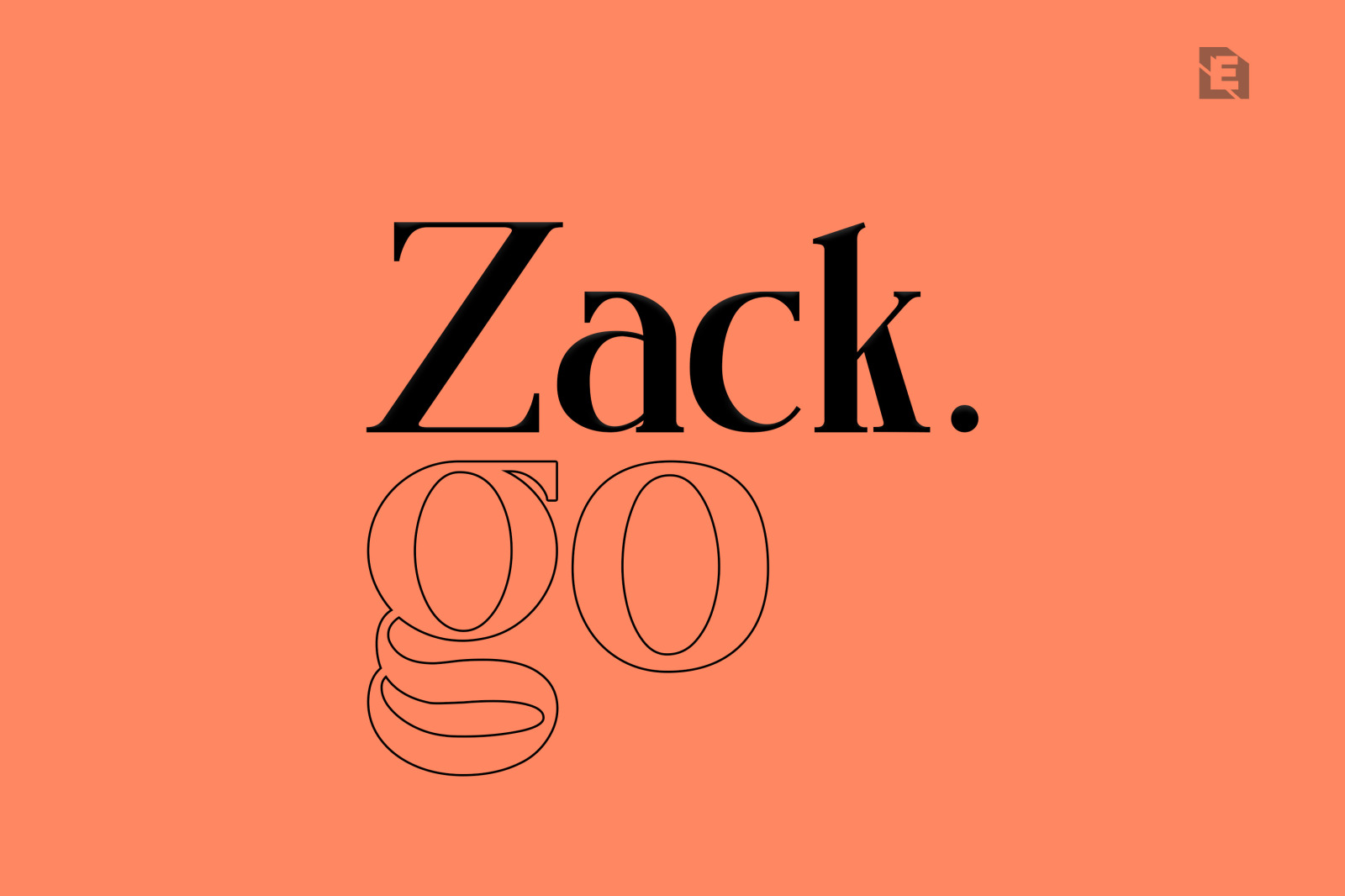
Nago Font
Introducing the new Nago Serif Font.It is an elegant and classy serif typeface – This font is both modern and Traditional.It works great for logos, magazine, social media. It’s a very versatile font that works great in large and small sizes .The works which need a touch of elegant, stylish, classy, chic and modernity for your designs, this font was created for you!
It carries a powerful, unique, and social character line with a premium finish, giving a new impression.